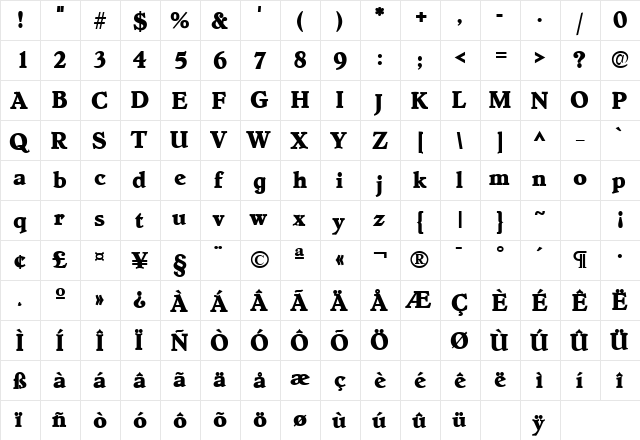
Budoken Heavy SF Bold
Design Context for Budoken Heavy SF Typeface
Budoken Heavy SF takes a measured approach to typography — its balanced proportions and neutral character make it a reliable workhorse for both digital and print work. The heavy weight commands attention and anchors typographic hierarchies.